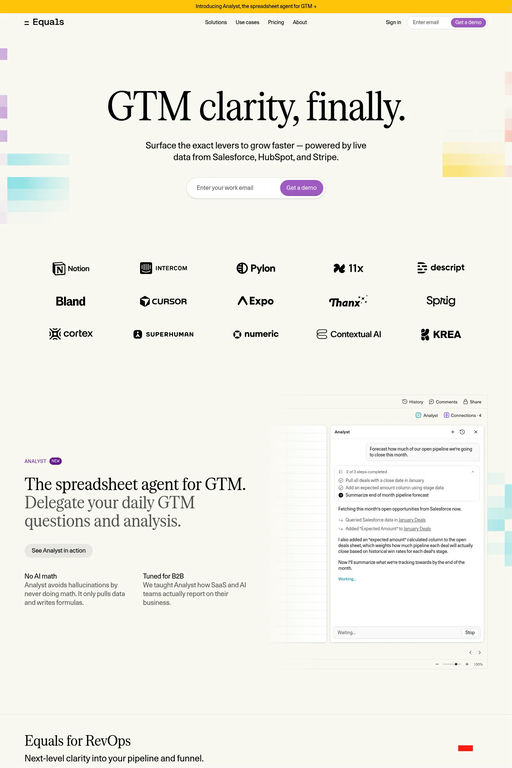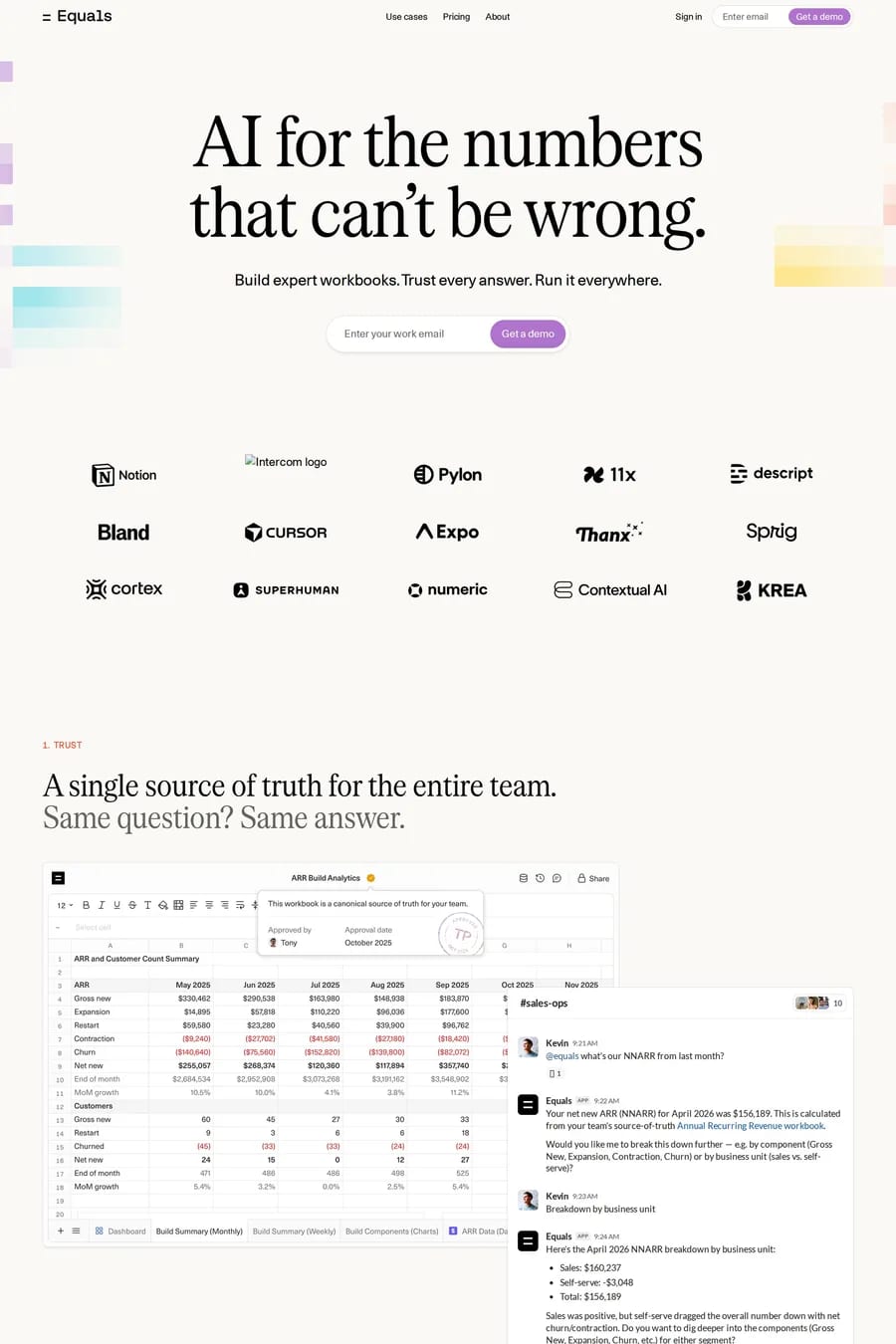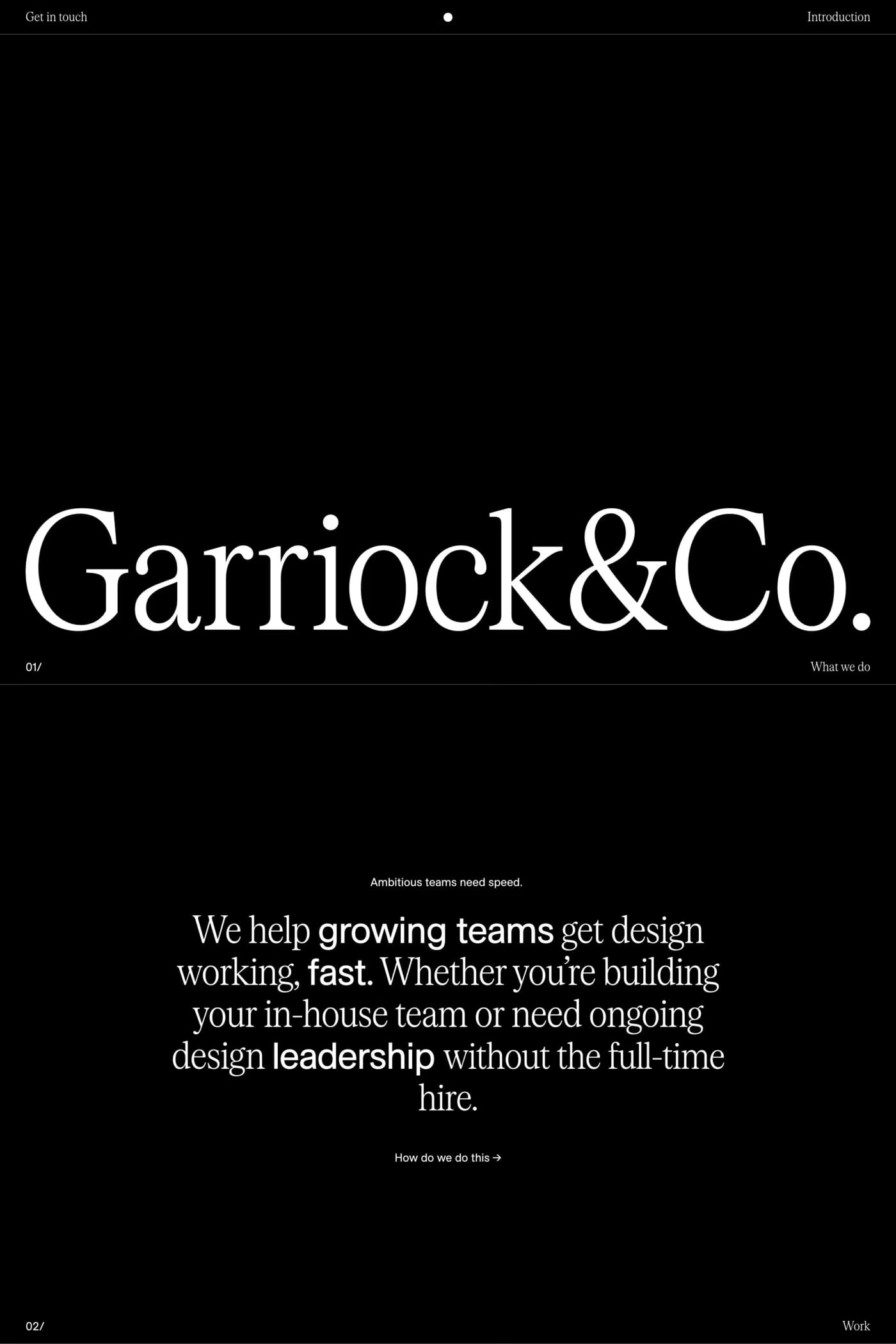
Serrif is a serif typeface from Displaay Type Foundry.
Serrif — Neutral, workhorse serif companion to Saans: vertical stress, lower contrast and sturdy serifs, optimised for small sizes but solid in display too.
A1 features 2 websites using Serrif, including Equals and Garriock & Co.. They lean towards Big type, Gradients, and Serif design styles, and they’re most often built with Framer.